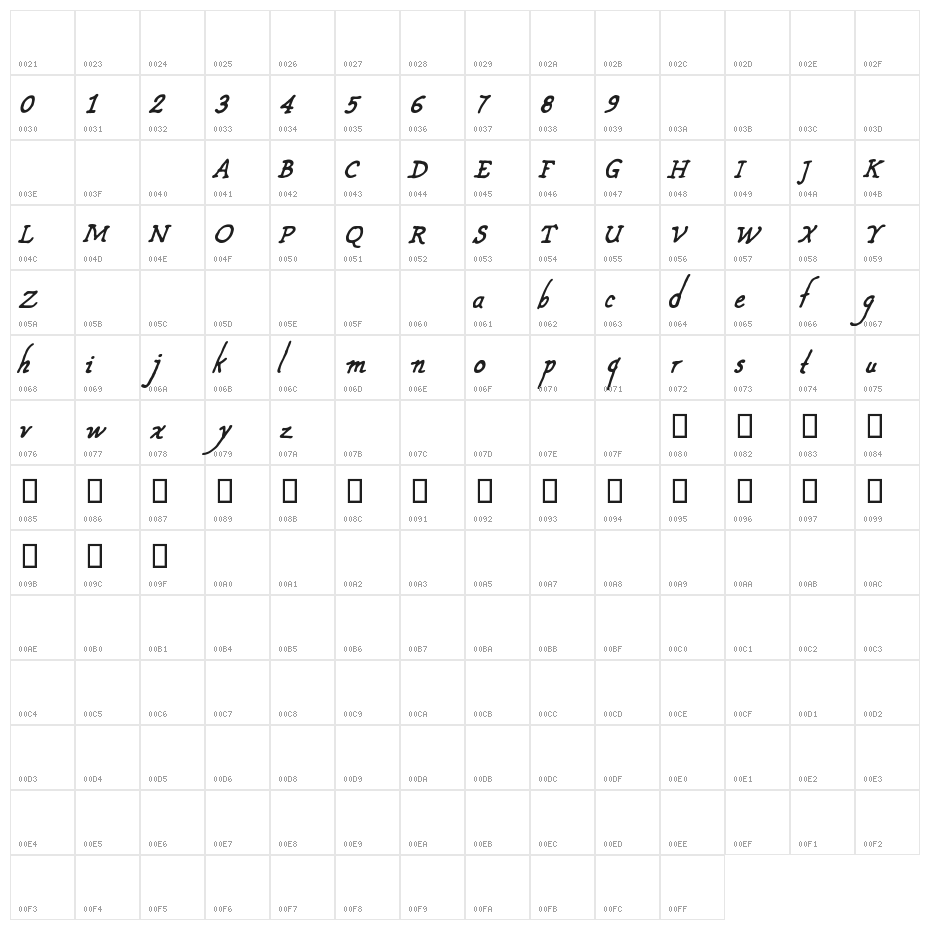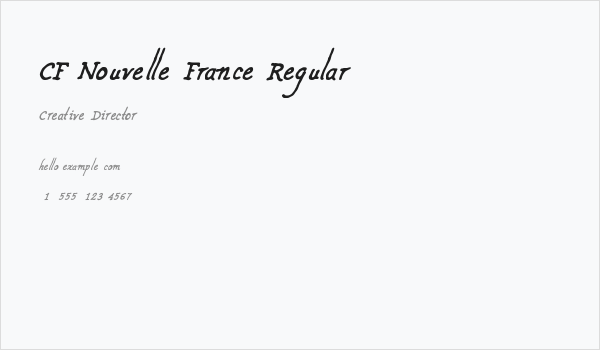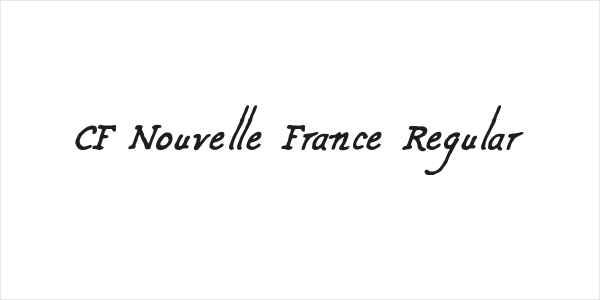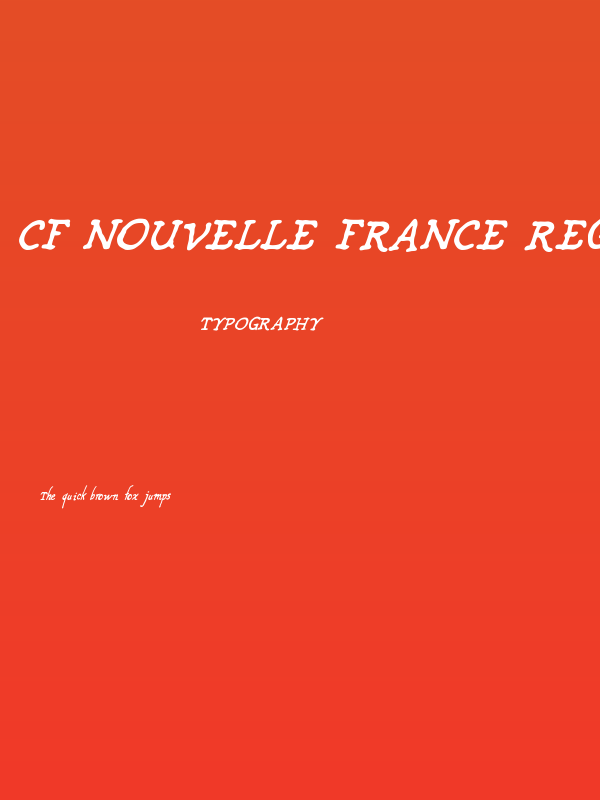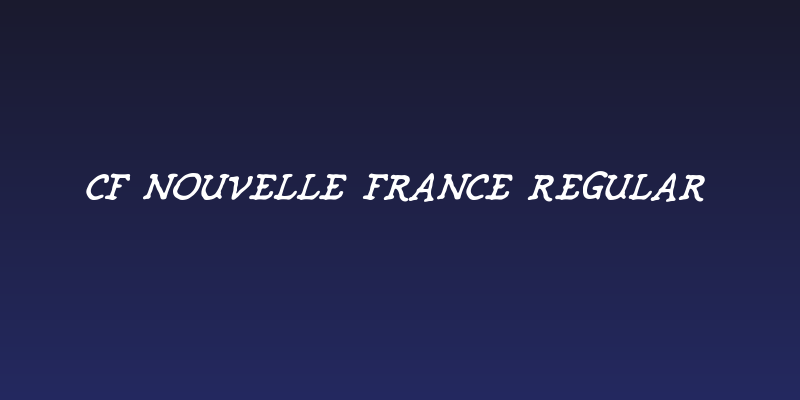
CF Nouvelle France Regular Font
CF Nouvelle France Regular Description
This font exhibits a classic and elegant script style, reminiscent of historical handwriting. The characters are fluid and slightly slanted, giving them a dynamic and sophisticated appearance. The uppercase letters are bold and prominent, while the lowercase letters maintain a consistent flow with delicate curves. The numerals are distinct and easy to read, matching the overall aesthetic of the font. Special characters are designed with the same attention to detail, ensuring a cohesive look across all glyphs. The font's design is suitable for projects that require a touch of vintage charm and elegance.
| Proposed Projects | Ideal for wedding invitations, historical documents, branding for luxury products, and decorative headings. |